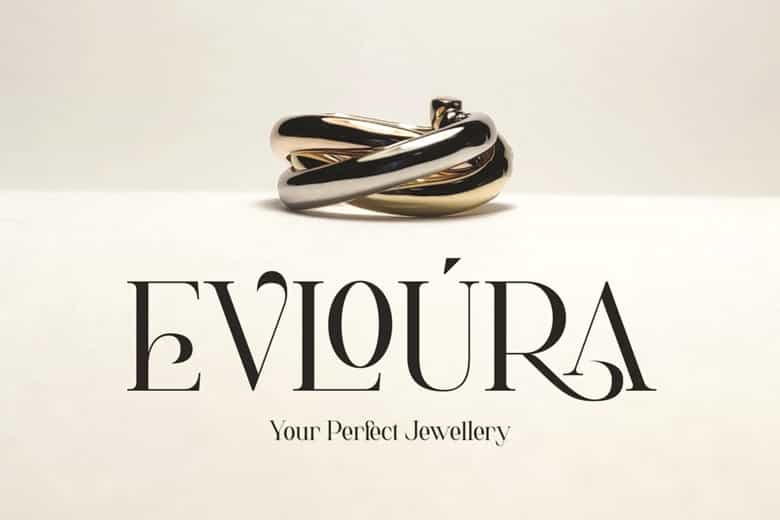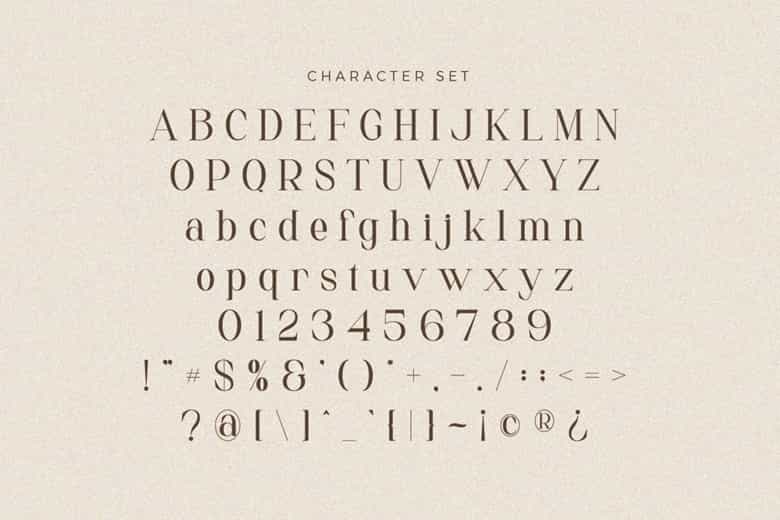
Arunica is a classy serif font with elegant looks, derived from well-known simple icon ideal for the goal of creating templates, flyers, videos, ads, branding, logo, etc.